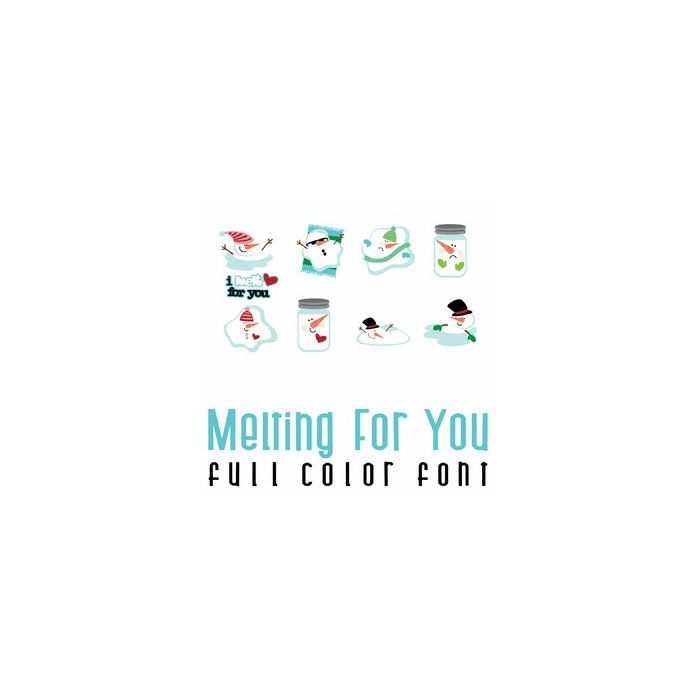
This fun full-color doodlebat font features 36 adorable Valentine Snowmen, puns and build your own Snowmen. perfect for cards, crafts, gifts, scrapbook pages, planner stickers, and more! A-V is imagery and W-z and 0-9 is build your own Snowman.